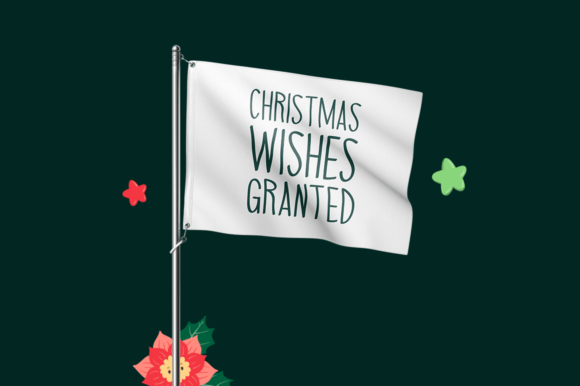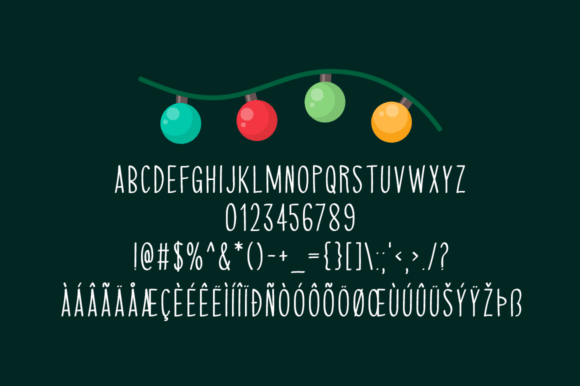
Introduction to Merry Forever Font
As designers, we’ve all been there – staring at a blank canvas, waiting for inspiration to strike. For many of us, the perfect font can be the spark that sets our creative projects ablaze. And, I’m thrilled to say, that spark has arrived in the form of the enchanting Merry Forever Font. This charming display font is a game-changer for designers of all levels, offering a delightful blend of elegance and whimsy that’s sure to elevate your work to new heights.
Whether you’re working on a high-quality design resource, a unique logo, or a trendy t-shirt design, the Merry Forever Font is an invaluable asset. With its transparent background and free download option, you can easily integrate it into your next creative project. And, as a versatile typeface, it’s perfect for a wide range of applications, from stylish photo frames to striking music covers and posters.
Key Features of Merry Forever Font
- High-quality design resource ideal for creative projects, such as holiday cards, gift tags, and social media graphics.
- Features a unique, playful design that is perfect for adding a touch of whimsy to your creative project.
Honest Review: Merry Forever Font
I recently stumbled upon the Merry Forever Font and I must say it’s a delightful addition to my design resource library. The font is perfect for creating a festive atmosphere in my creative project.
- ✨ High-quality design: The Merry Forever Font has a beautiful, intricate design that’s sure to catch the eye.
- ⚠️ Limited font styles: The Merry Forever Font only comes in a few styles, which might not be enough for some designers.
- ⚠️ Not suitable for serious projects: The font’s playful design might not be suitable for more serious or professional creative projects.
Overall, I’m quite impressed with the Merry Forever Font. While it may have some limitations, its high-quality design and free download make it an excellent choice for designers looking to add some festive flair to their projects.
Merry Forever Font
The Merry Forever Font is a high-quality design resource perfect for adding a touch of whimsy to your creative projects. With its transparent background, this font is easily adaptable to any design.
Tips for Getting the Most Out of Merry Forever Font
To get the most out of the Merry Forever Font, use it in bold and italic styles to add emphasis to your text. You can also combine it with other fonts to create a unique design.
The Merry Forever Font is perfect for:
- Wedding invitations and decorations
- Holiday greeting cards and gift tags
- Party decorations and invitations